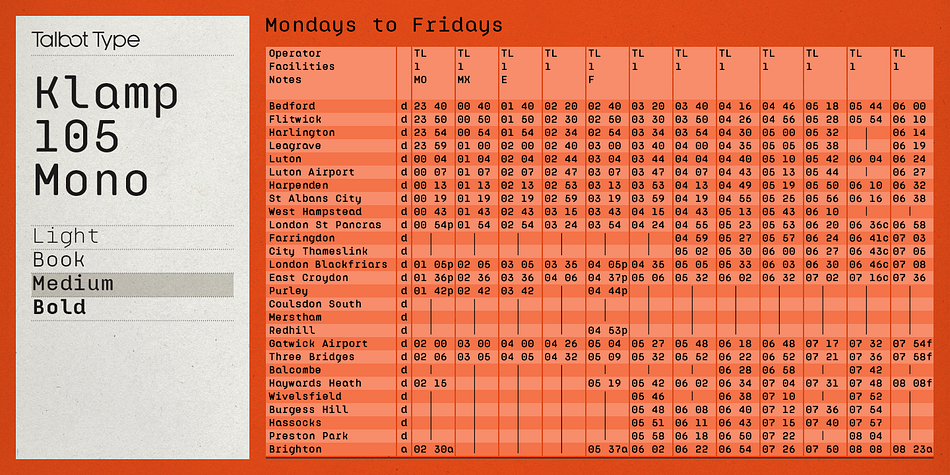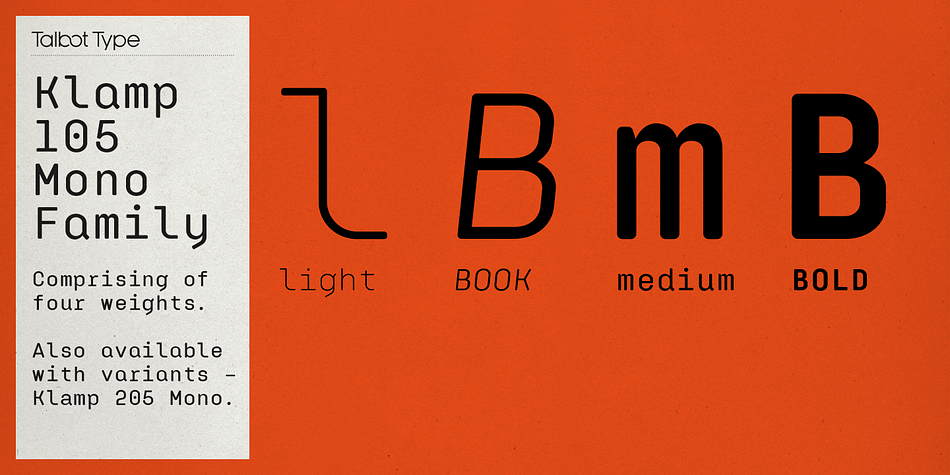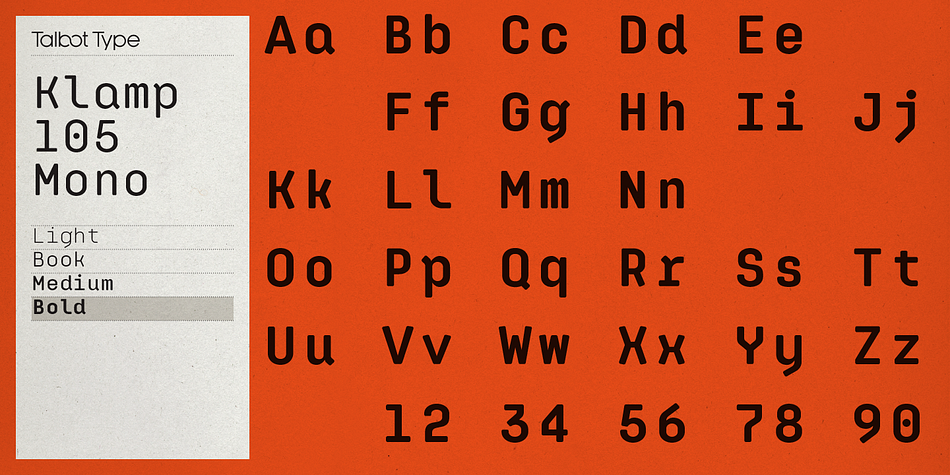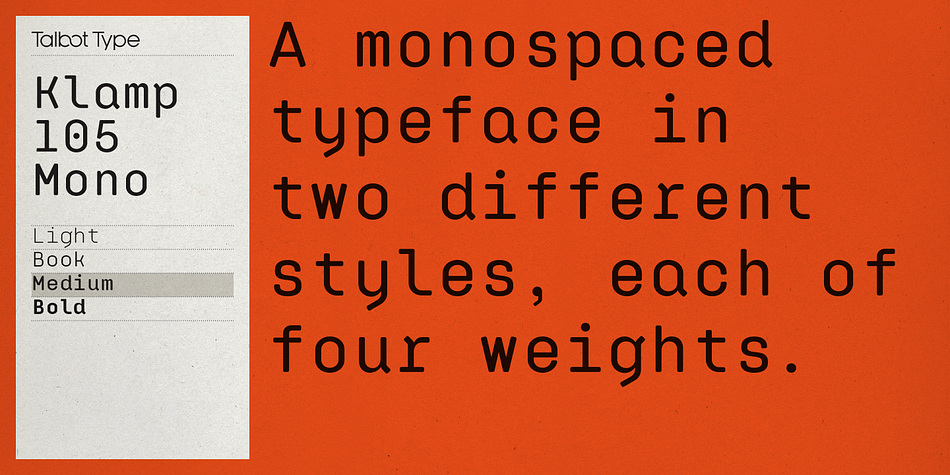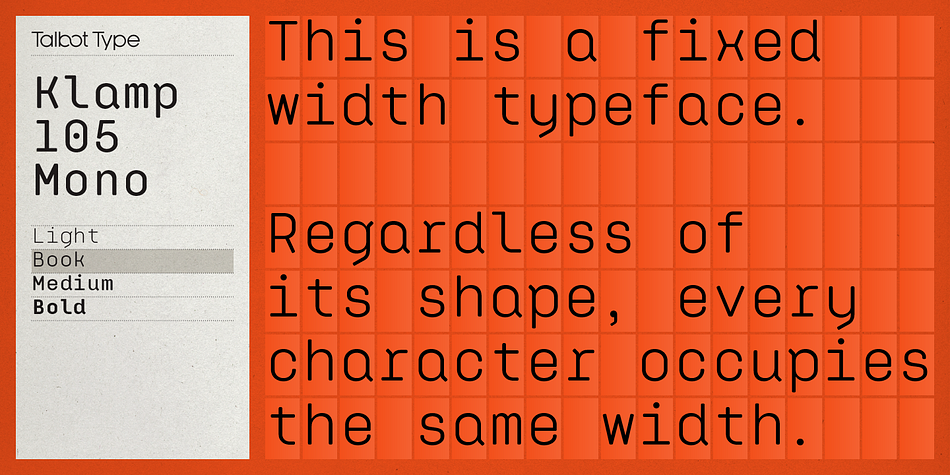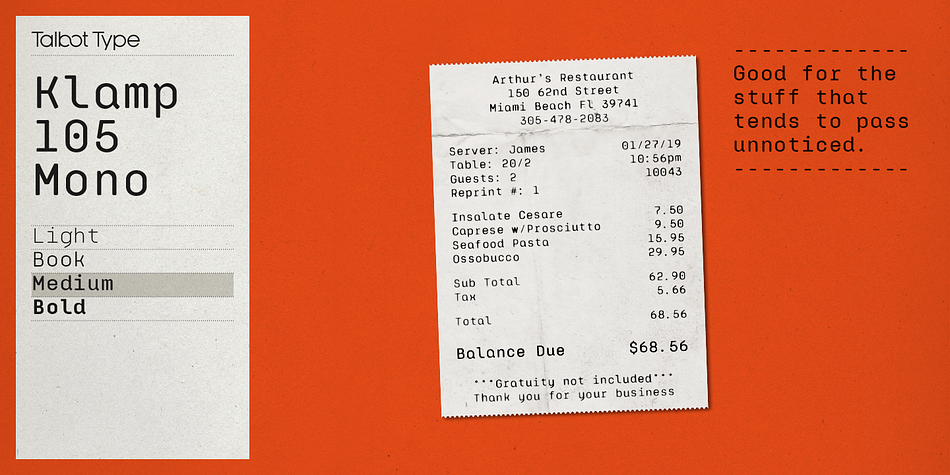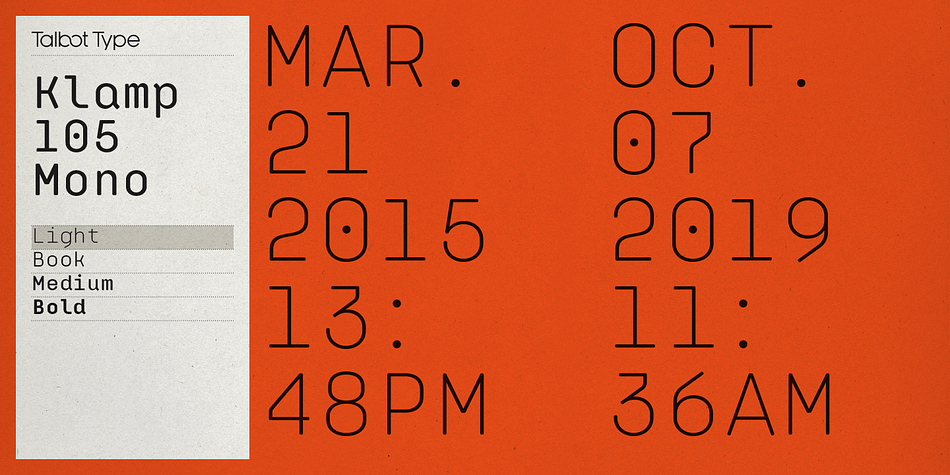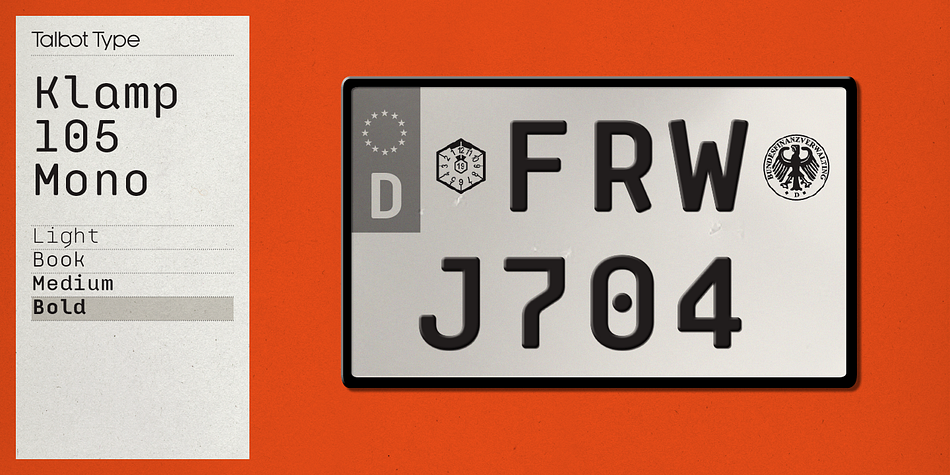
Designed by Adrian Talbot, Klamp 105 Mono is a sans serif font family. This typeface has eight styles and was published by Talbot Type.
Talbot Type Klamp 105 Mono is a monospaced variation of Talbot Type Klamp 105. The clean and pure geometry of Klamp 105 makes it highly suitable for adaptation to this monospaced variant. It has an even look and retains its legibility at very small sizes.
Klamp 105 Mono is available in a family of four weights and features an extended character set to include accents for Central European languages. Klamp 205 Mono, with some character variations, is also available as a monospaced variant of Klamp 205.